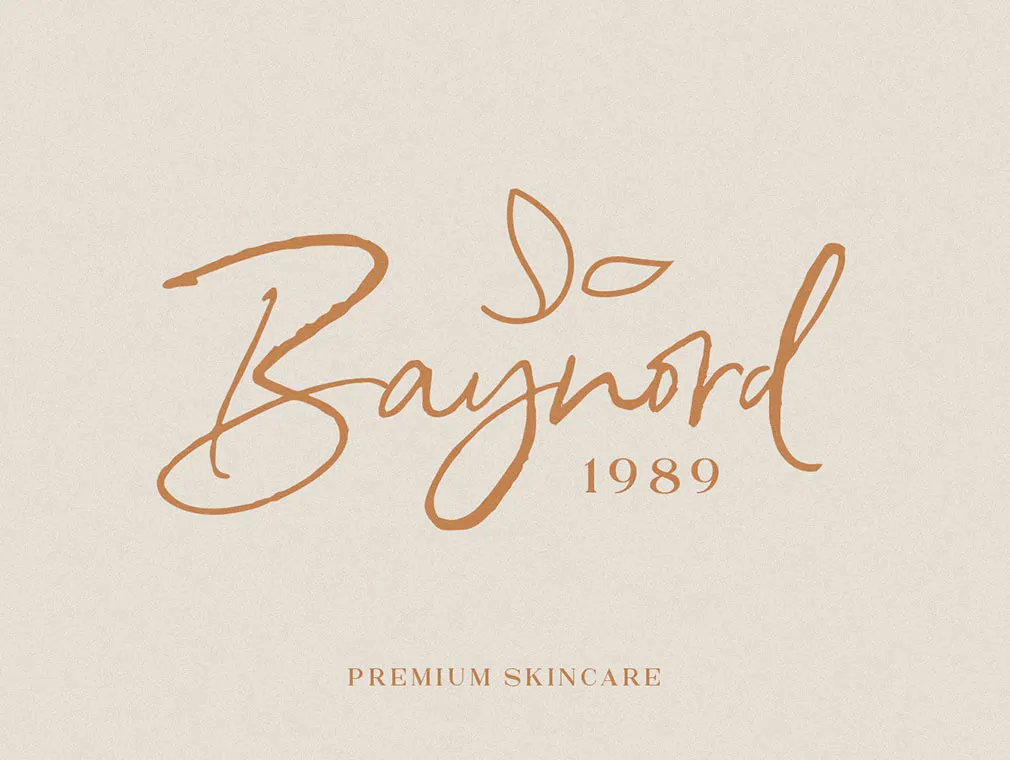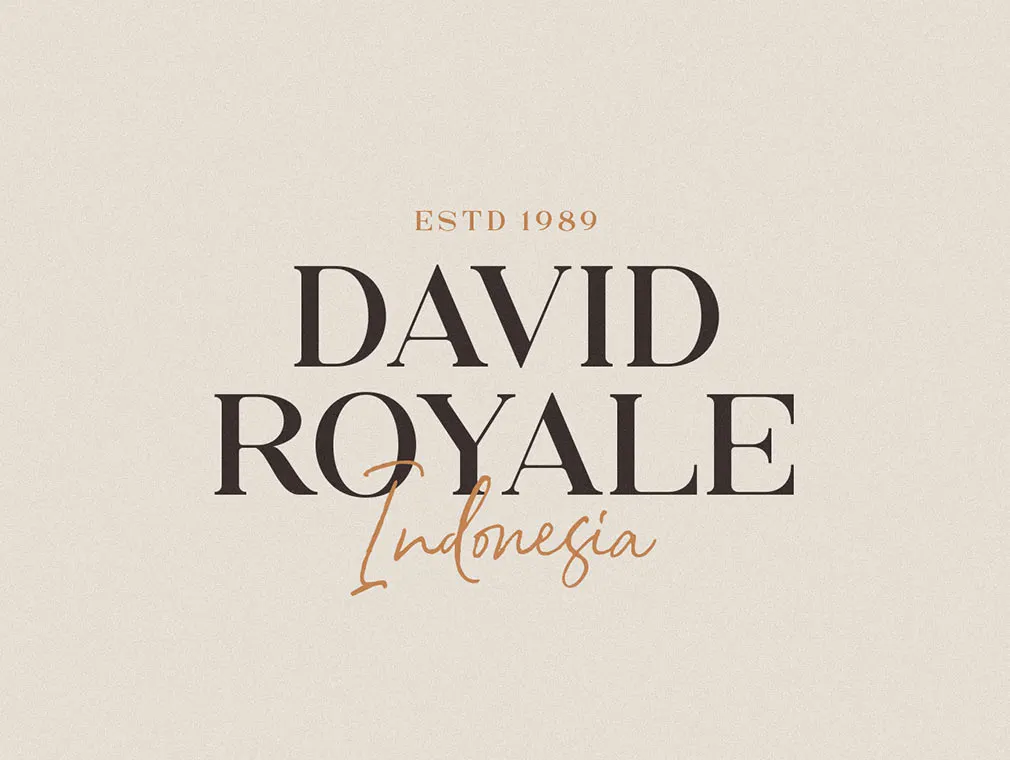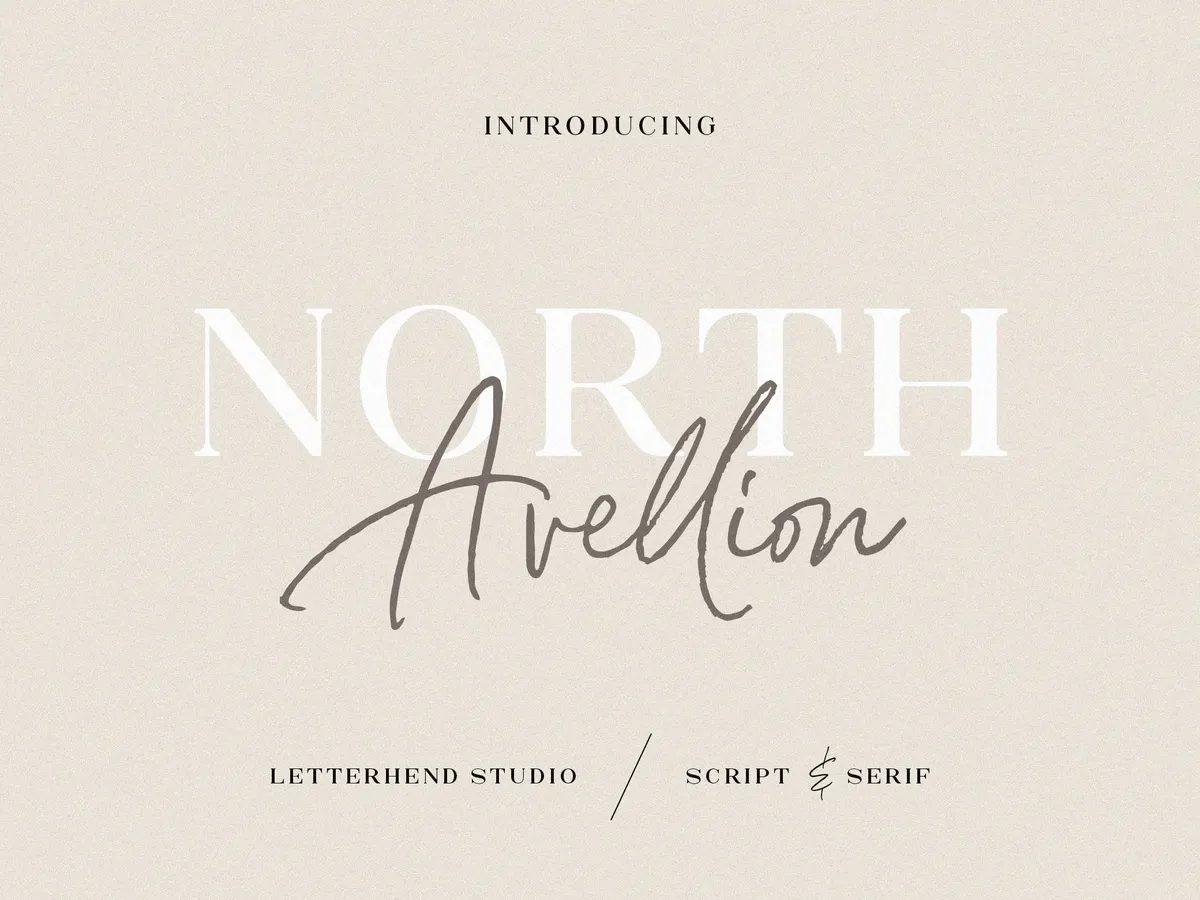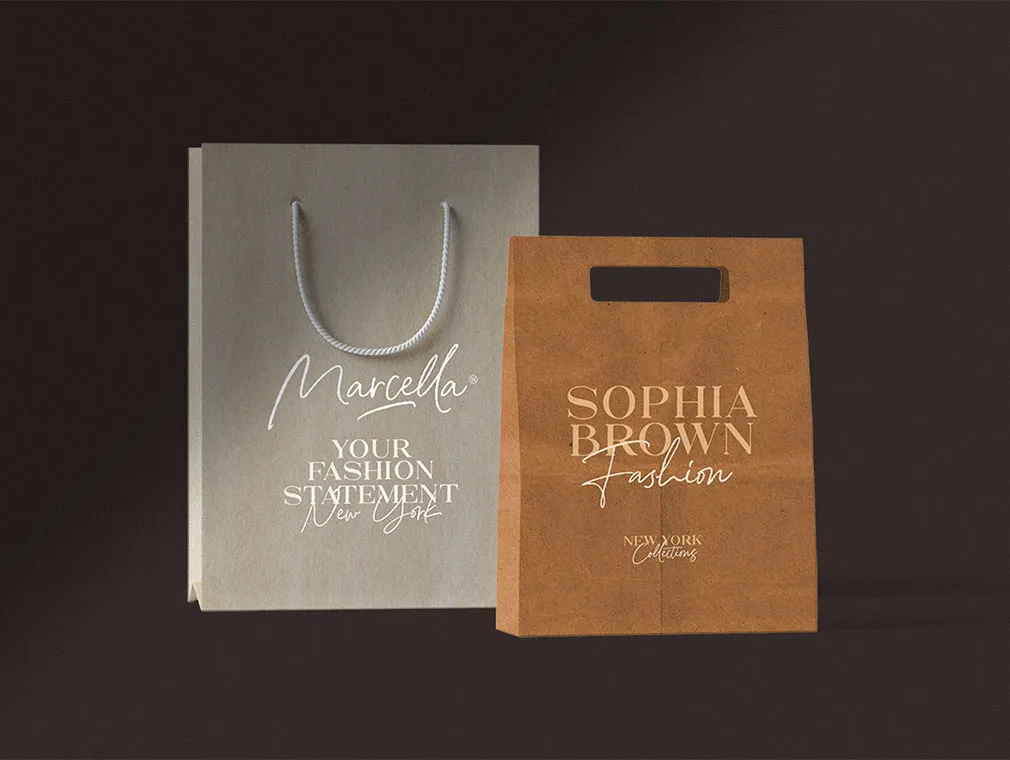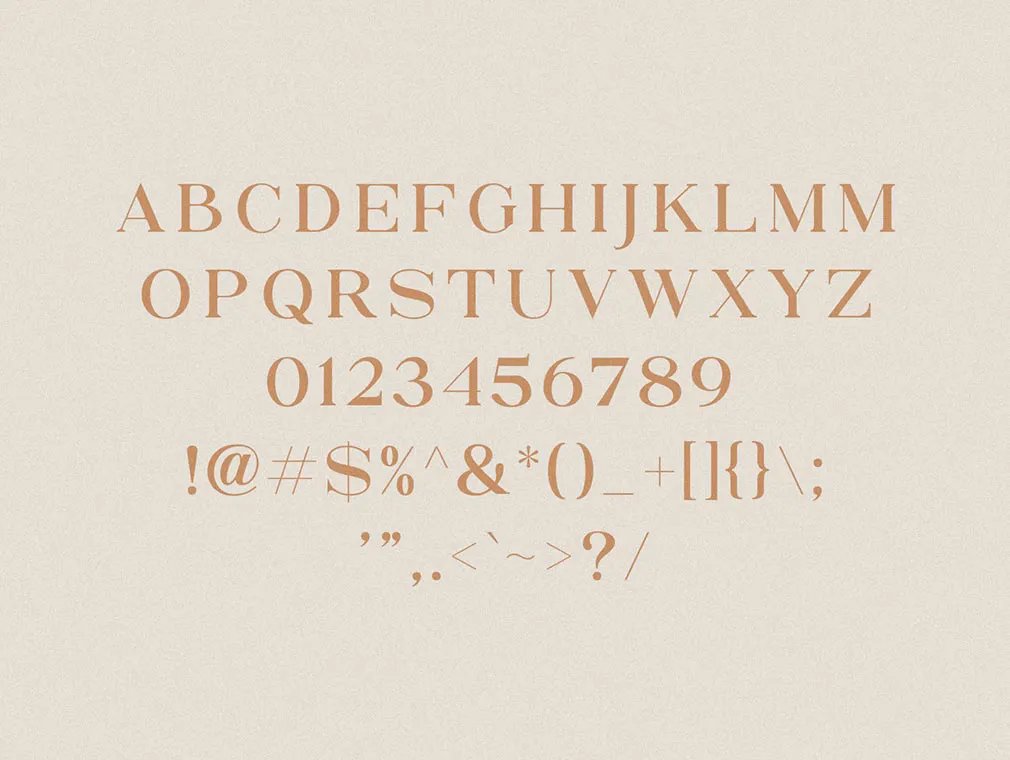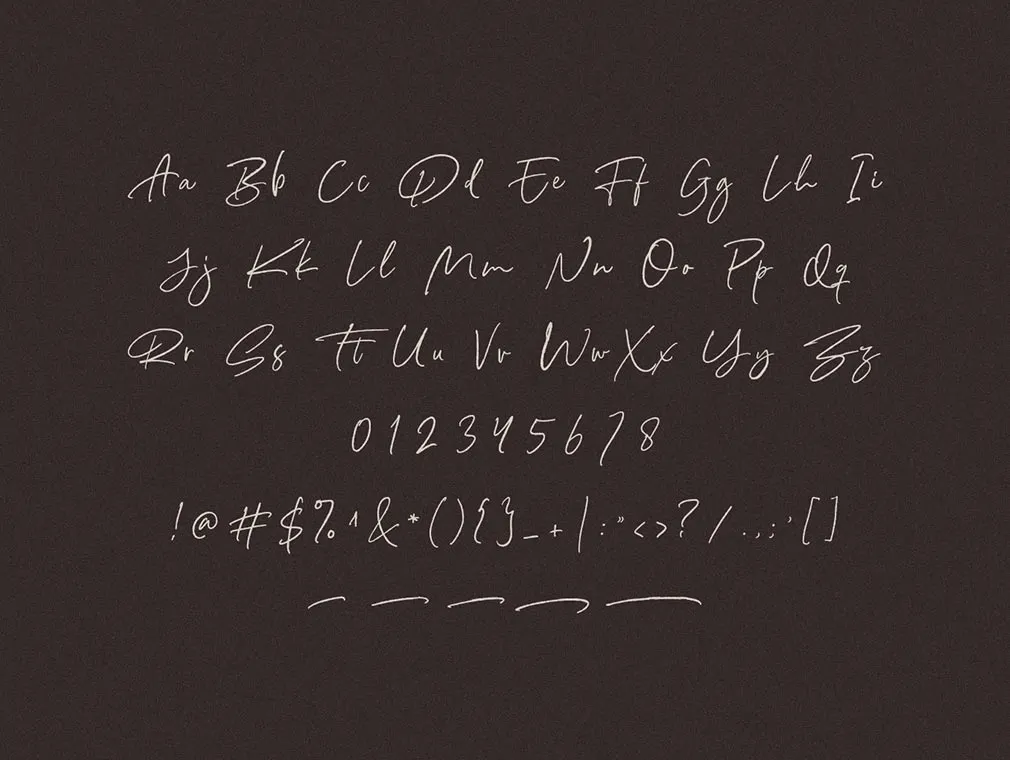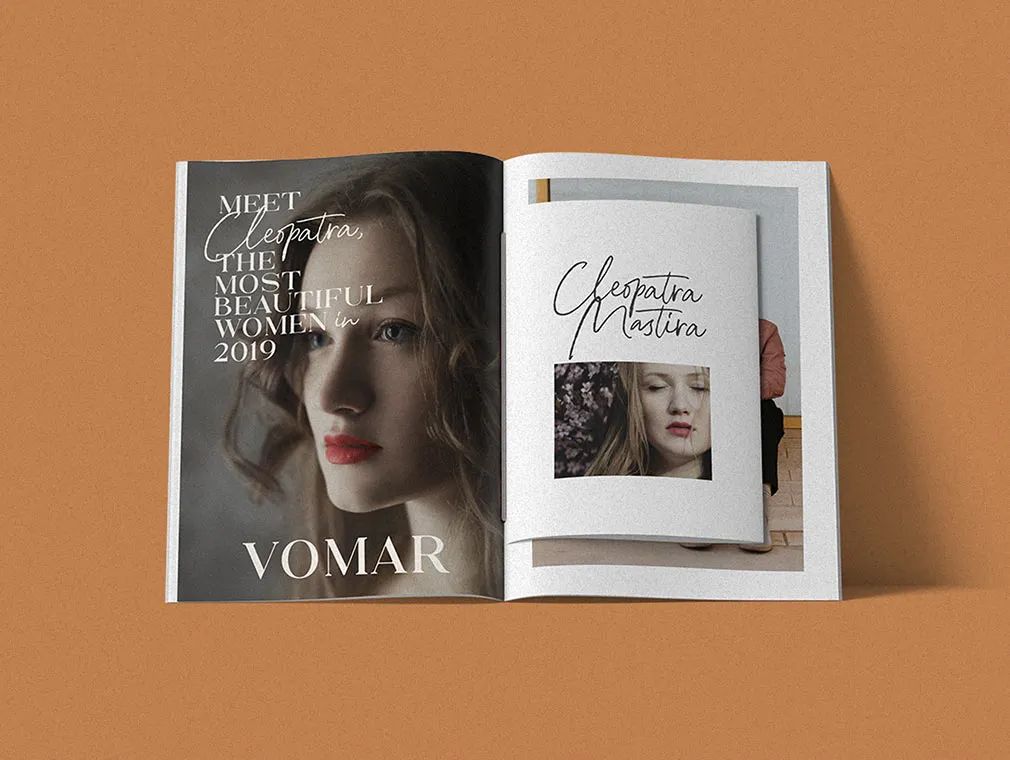
North Avellion Font Duo
Is there any pair more perfect than serif and script? This typeface has a classic style yet looks great for modern designs. And remember: you can't separate them, they're meant to be together.
This font duo works perfectly for those who need a typeface for headline, logotype, apparel, invitation, branding, packaging, advertising, and many other appliances. Besides, the package can boast with uppercase & lowercase, numbers, punctuation, alternates, and swashes. You can use only one font of combine serif and script together if the choice is too tough. Easy to work with and pleasant to look at what else can you possibly need?